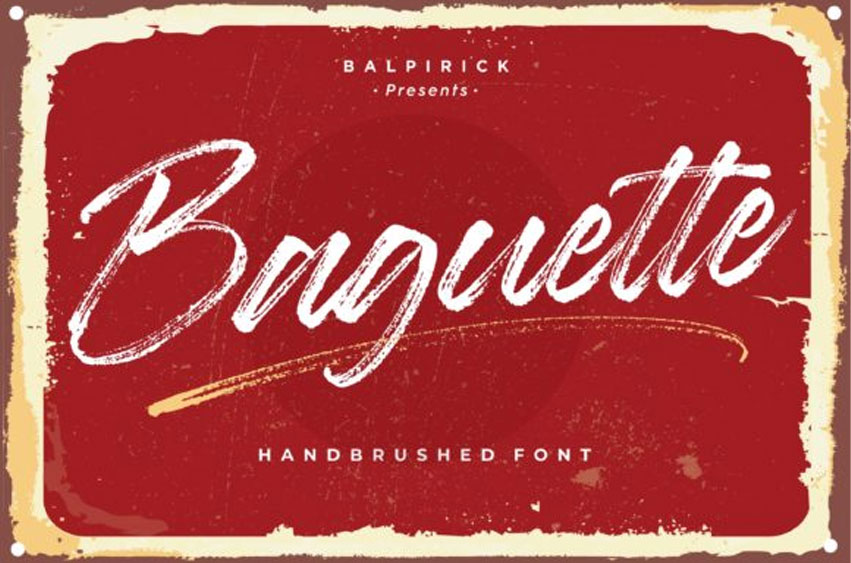
Baguette Brush Font
Baguette Brush Font is a natural hand-brushed font. It’s perfect for logos, greeting cards, invitations, stationery, social media posts and much more!
Baguette will look outstanding in any context, whether it’s being used on busy backgrounds or as a standalone headline!